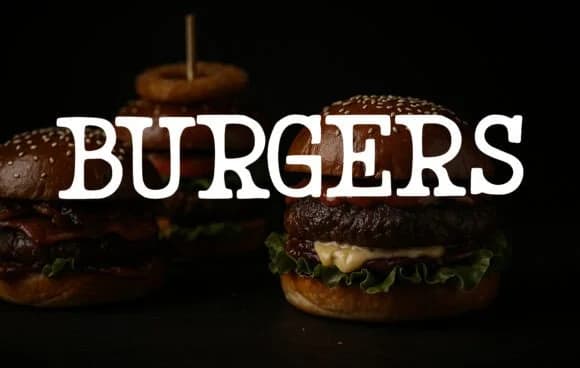
Picture a retro diner menu board or a colorful classroom poster from the 1970s, and you'll immediately see exactly where Burgers, designed by OliviaFontCo, belongs. This slab serif font carries that vintage groove that makes people actually stop and look twice without hesitation. The chunky serifs and bold character shapes are specifically built for work like retro diner menus, school classroom posters, and authentic picture book covers where genuine warmth and personality really do matter. Its playful proportions sit comfortably between quirky and readable, making it equally suited to DIY craft signage, boutique restaurant branding, vintage labeling, and any kid-friendly design work that needs a human touch.
This font's geometric structure gives it a friendly, approachable presence without trying too hard. Clean letterforms hold strong at large display sizes, where each character's individuality comes through clearly and distinctly. From vintage packaging design to hand-lettered indie projects to groovy coffee shop branding, Burgers brings that nostalgic warmth without ever feeling ironic or stuck in the past.
- Sturdy, Confident, Burgers
Burgers Font is a slab serif font that shines as a display or heading face. Pair it with a clean sans-serif or serif font for body text β the contrast creates a clear hierarchy while the two styles stay balanced and easy to read.
Burgers Font